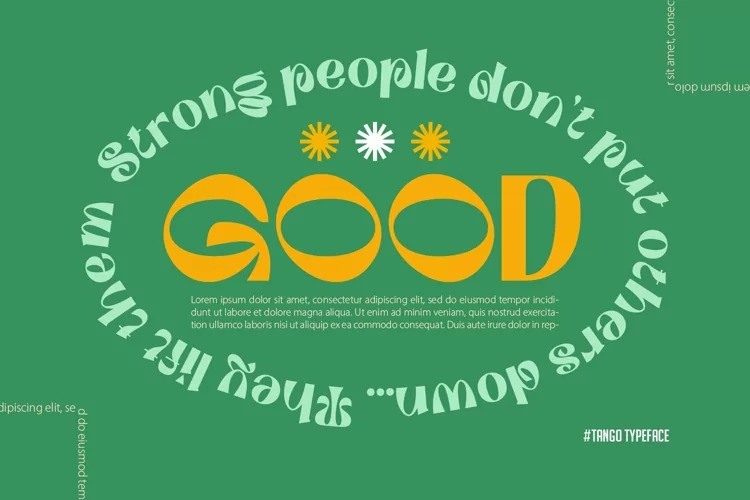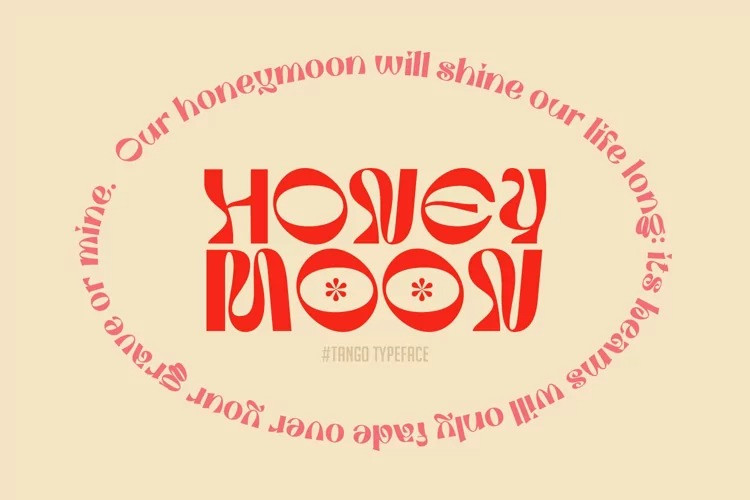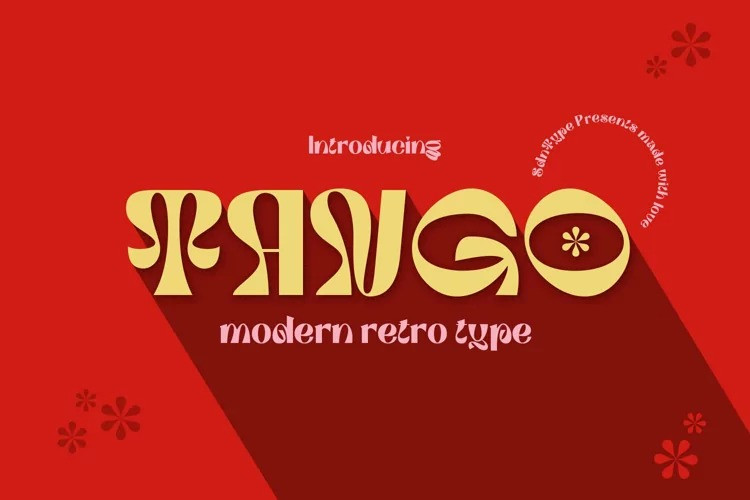
Tango Font
Introducing Tango Modern Retro Font, use this font for any branding, product packaging, invitation, quotes, t-shirt, label, poster, logo etc.